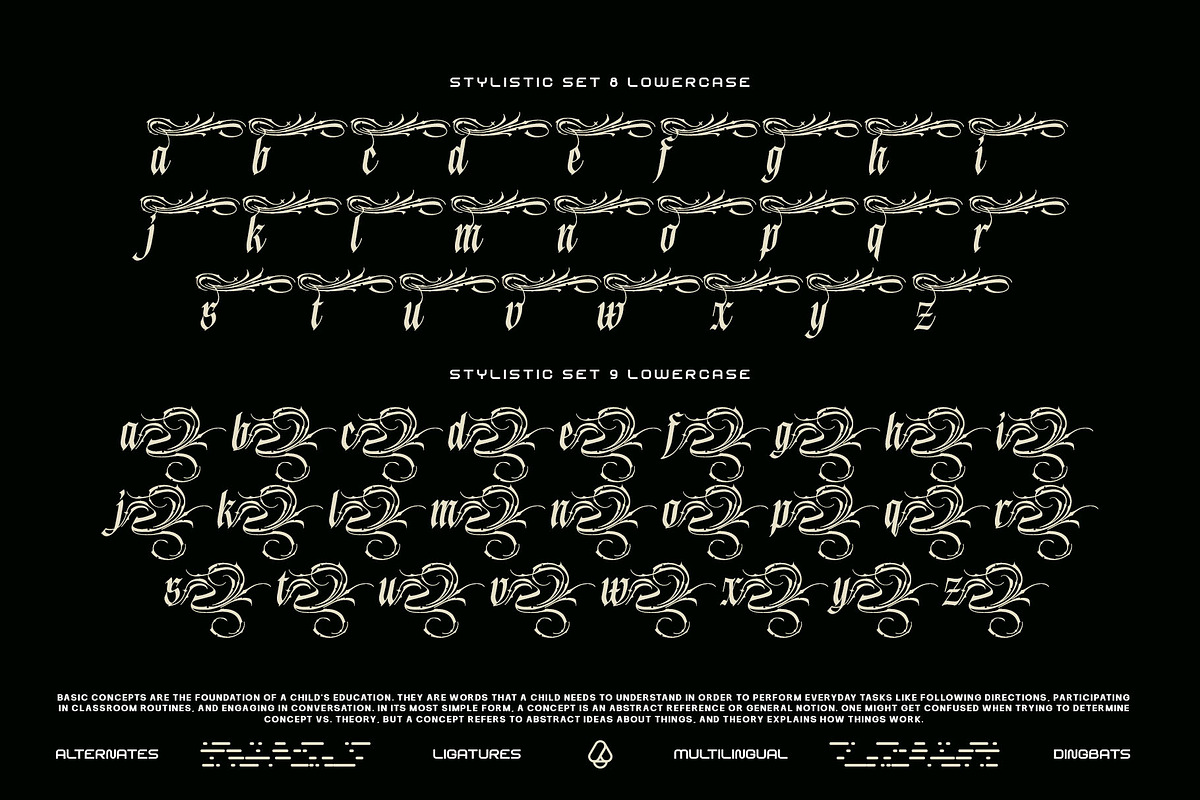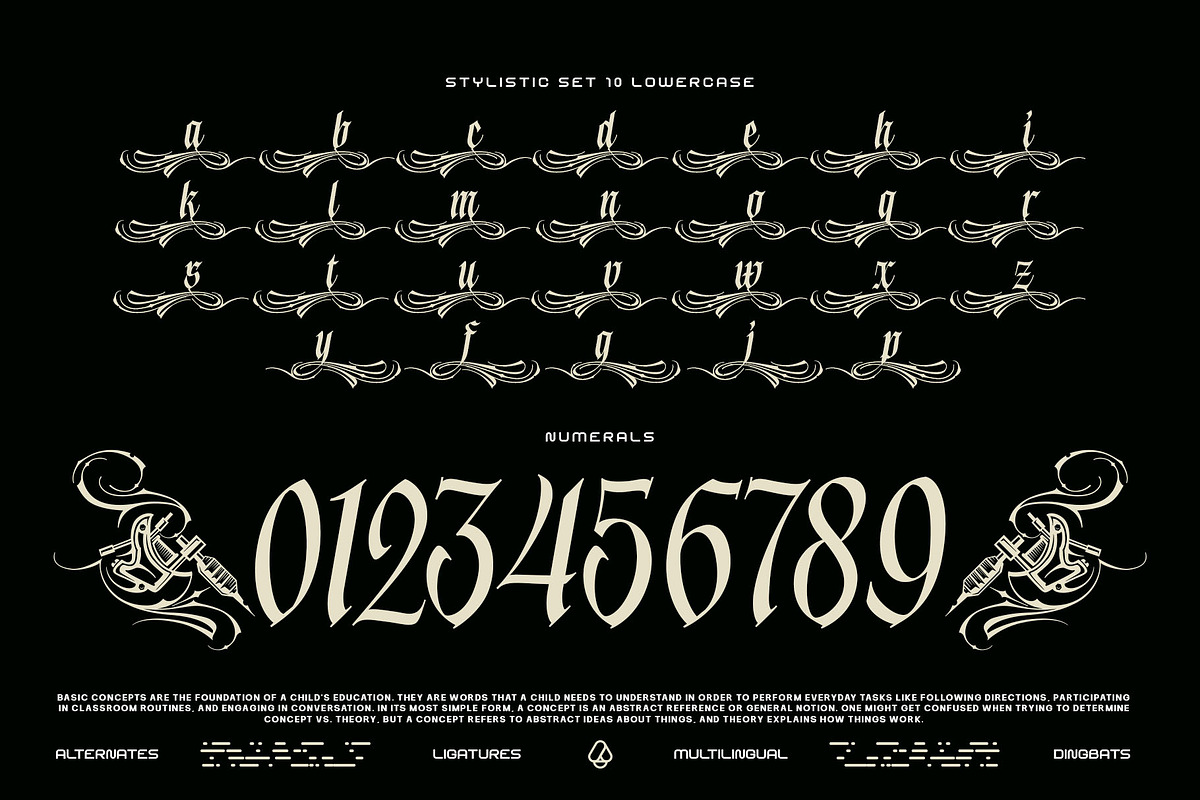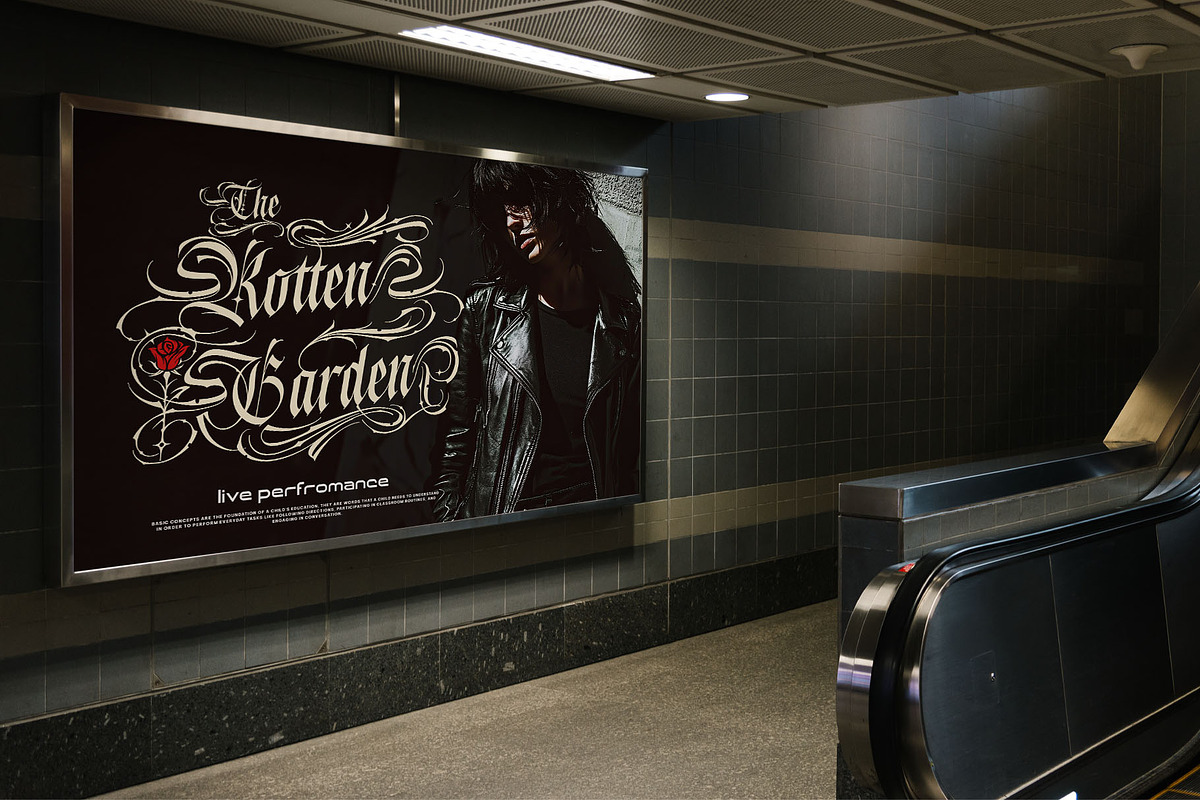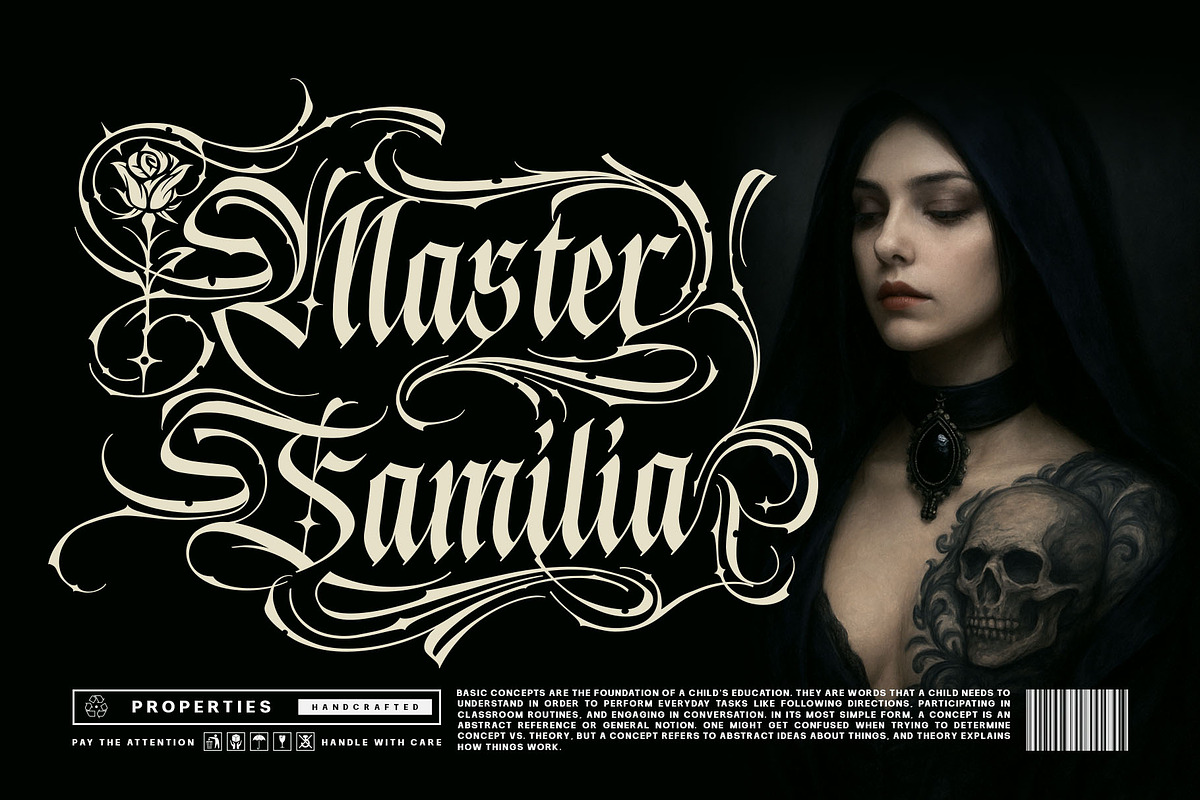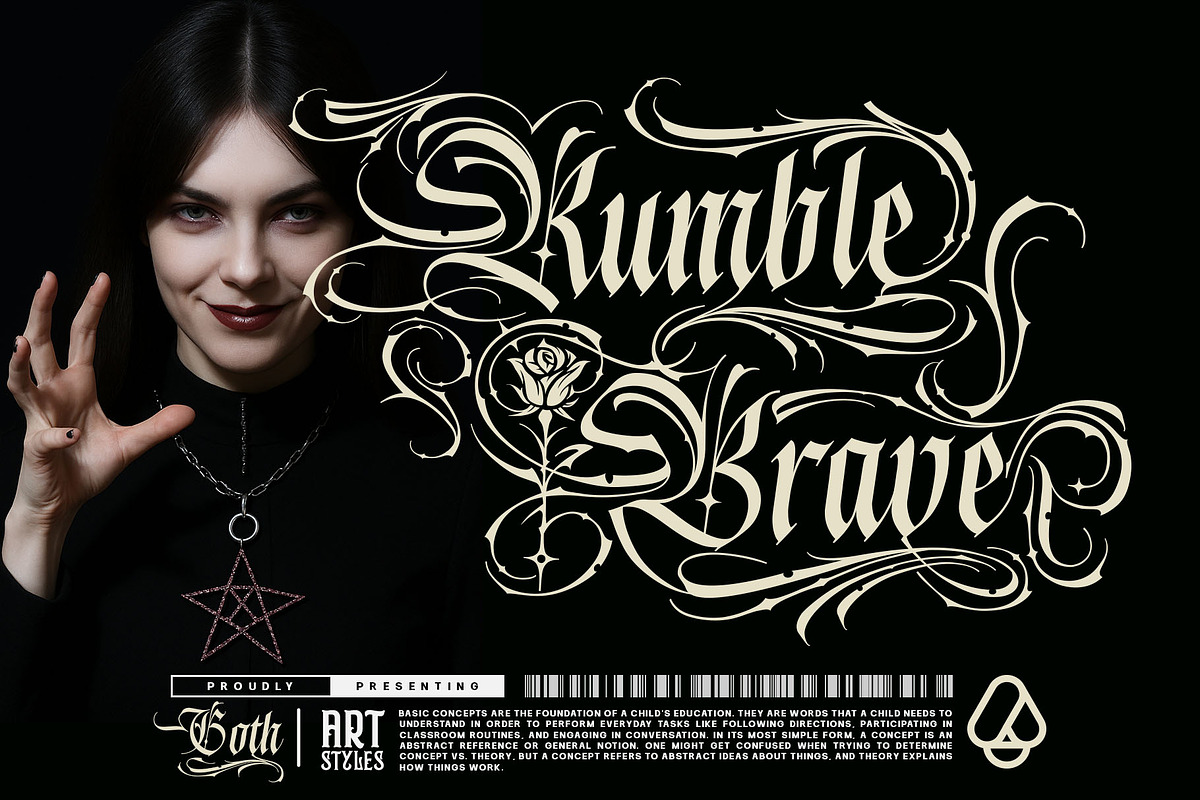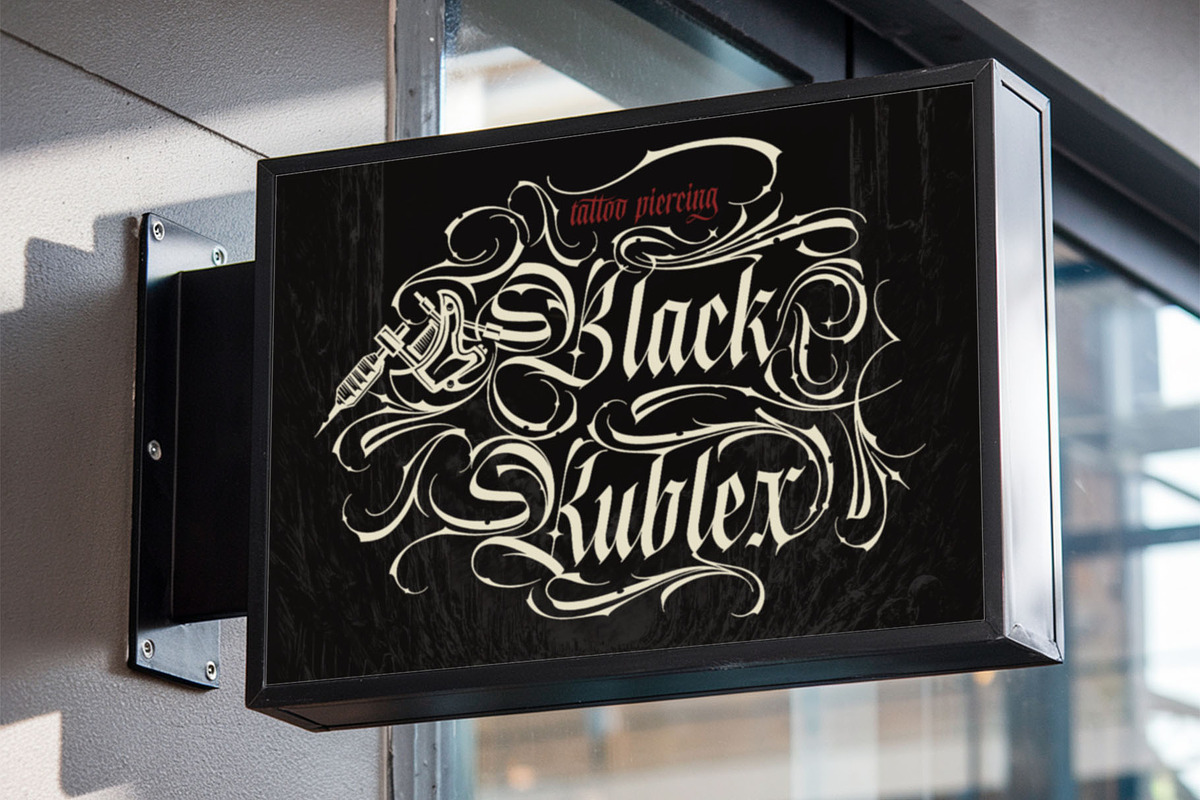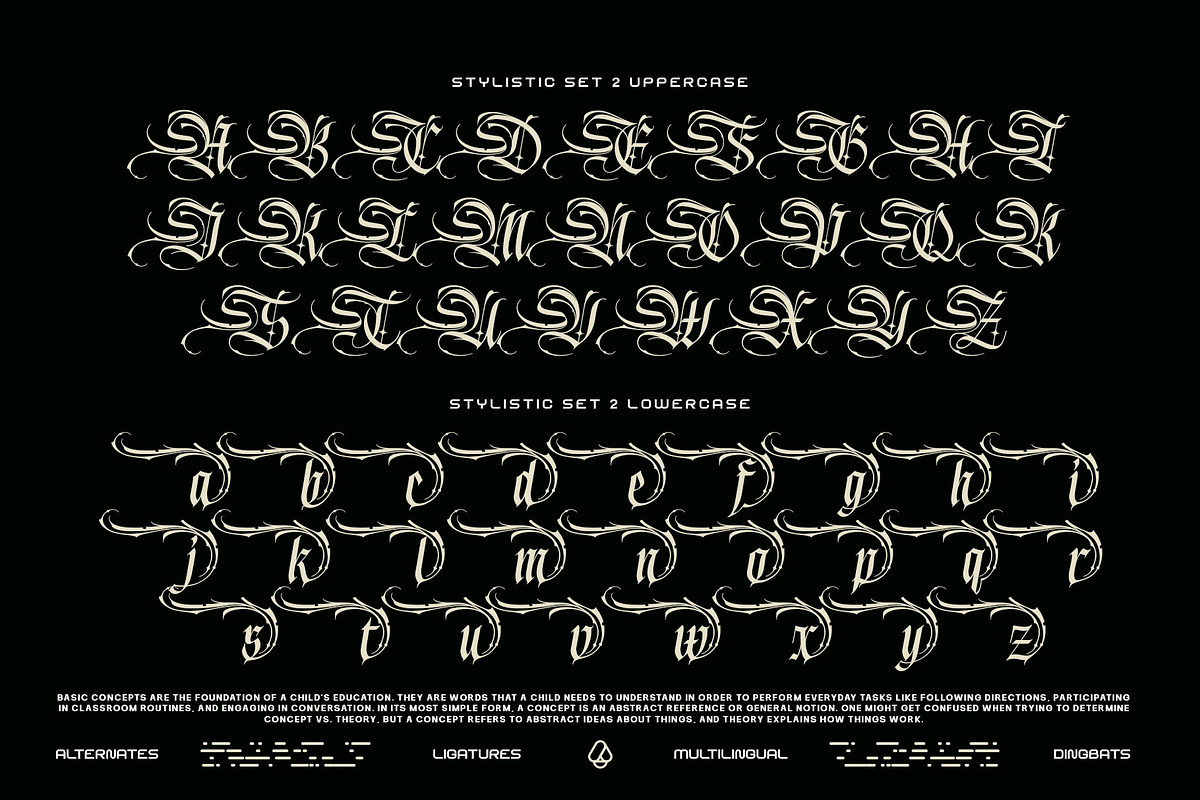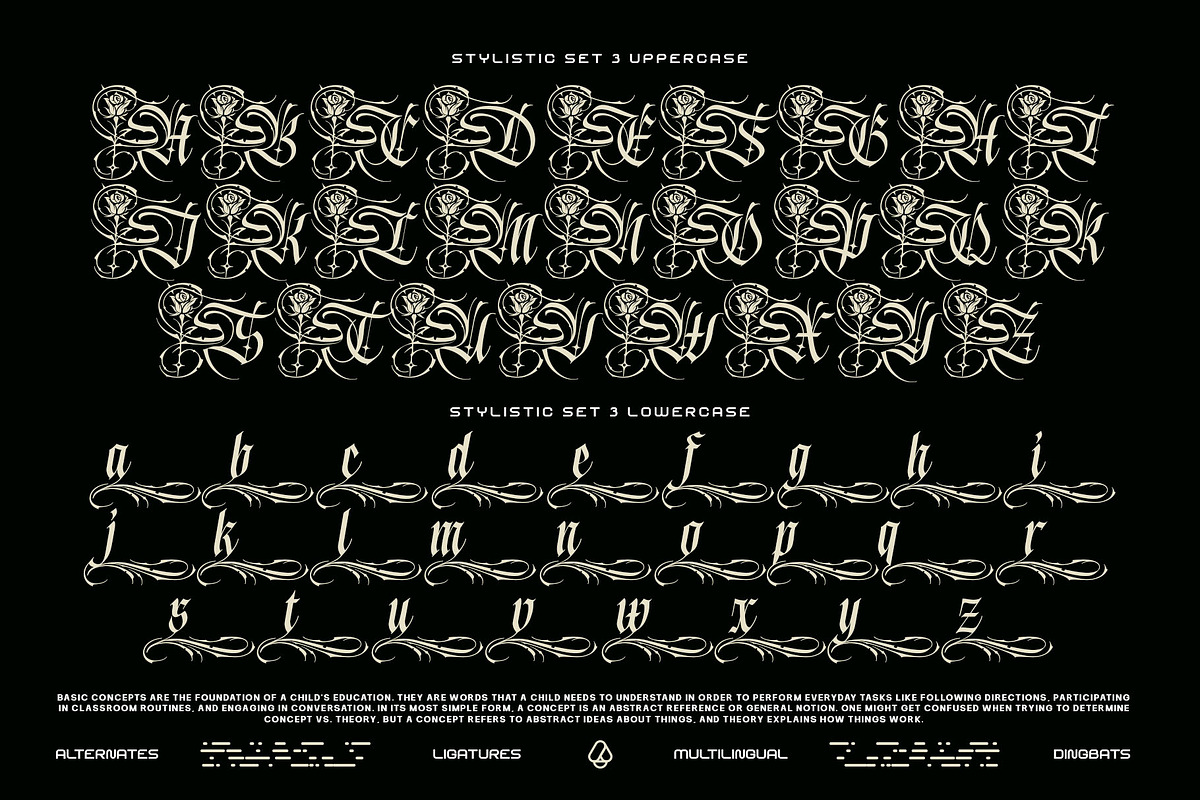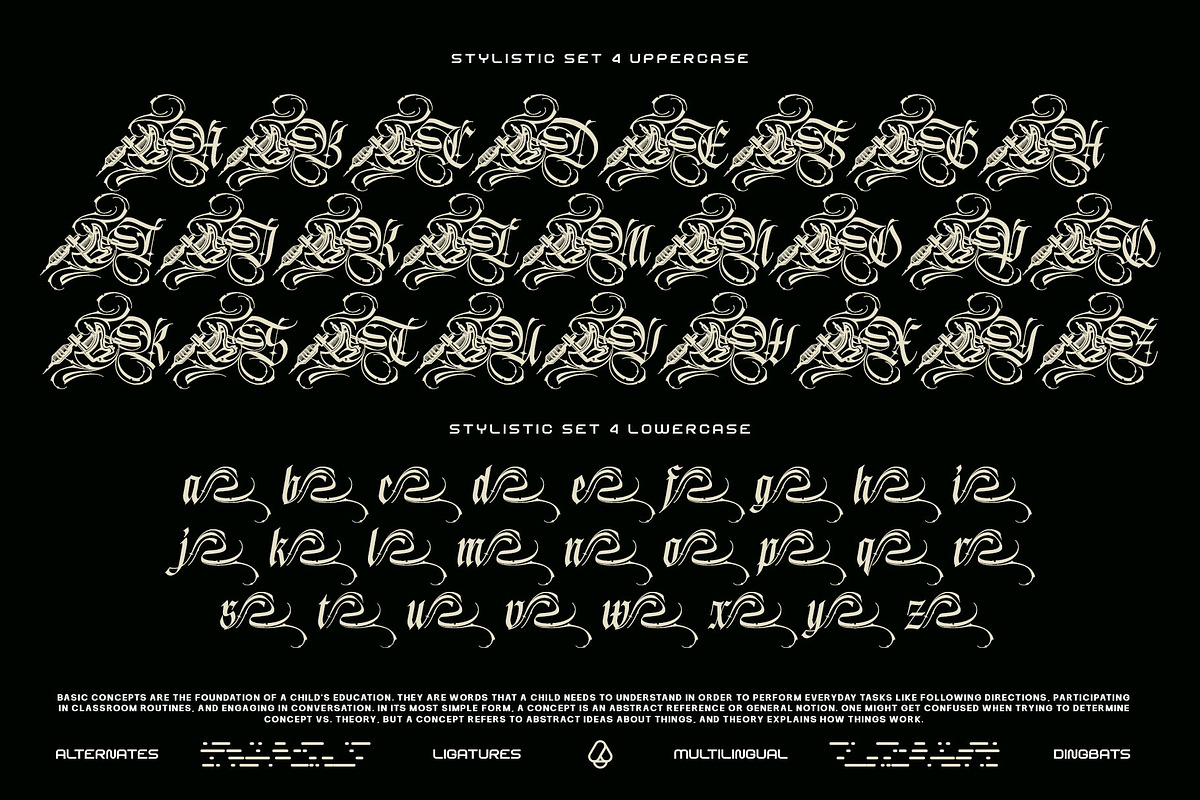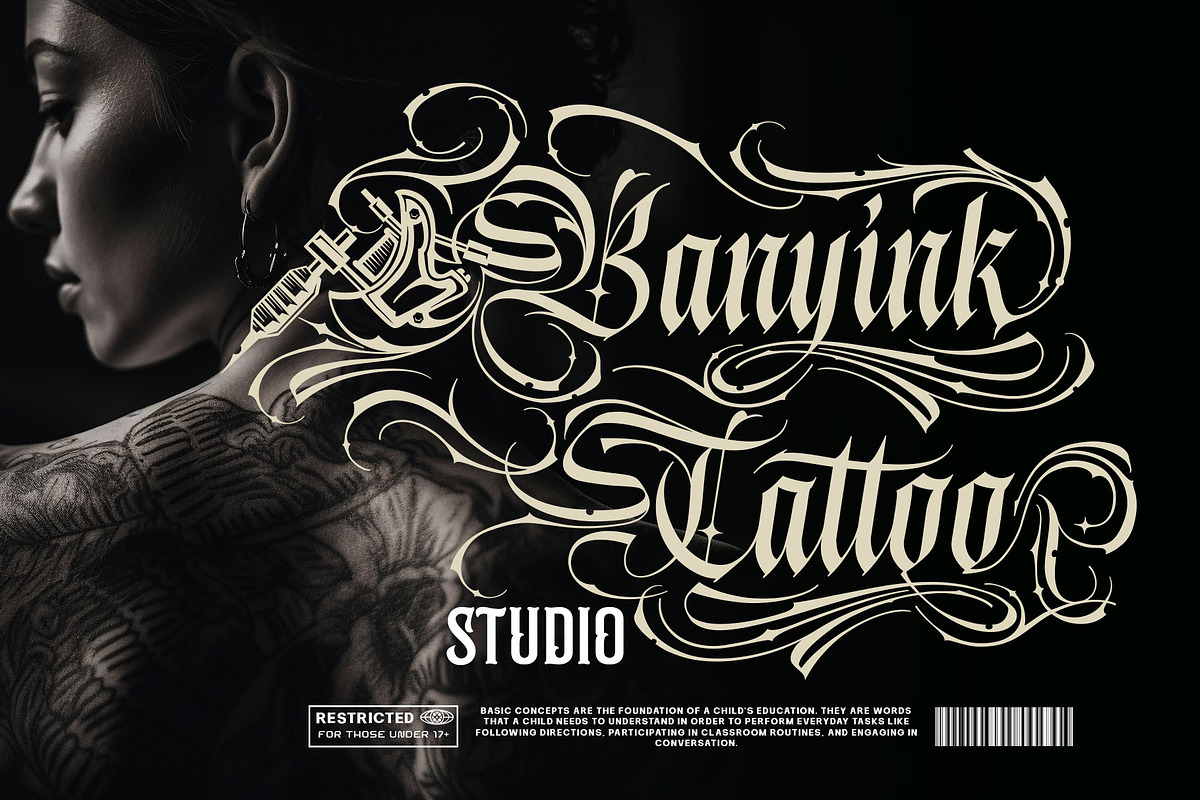
Blink Round Typeface
Blink Round Typeface: Fearless Blackletter with a Vicious Edge
Introducing Blink Round, a typeface that doesn't just speak—it roars. Forged in the spirit of rebellion and the artistry of the tattoo parlor, Blink Round is a blackletter script that bleeds attitude. This isn't your ordinary gothic font; it's a declaration, a statement piece designed for the bold and the unapologetic.
Every character is crafted with aggressive precision, featuring intricate swashes that twist and turn like thorny rose vines. The sharp, decisive strokes give your text a commanding presence, while the extensive set of stylistic alternates allows for complete creative control. Whether you're designing for a metal band, a streetwear brand, or a tattoo studio, Blink Round brings a raw, handcrafted authenticity that is simply unmatched.
Infused with the dark elegance of gothic culture and the untamed spirit of tattoo art, Blink Round is the ultimate tool for projects that demand to be seen and remembered.
- Aggressive & Stylish Blackletter: A modern take on a classic style, perfect for making a powerful impact.
- Vast Set of Alternates: Includes multiple stylistic sets for every letter, giving you endless possibilities to customize your look.
- Thorny Rose Swashes: Beautifully complex swirls and flourishes that add a touch of dark romance and danger.
- Thematic Ornaments: Includes dingbats and glyphs inspired by tattoo culture, including roses and other iconic elements.
- Multilingual Support: Reach a global audience with comprehensive language support.
- Perfect for: Tattoo logos, apparel design, album art, posters, gothic branding, and any project that needs a fierce, custom-lettered feel.